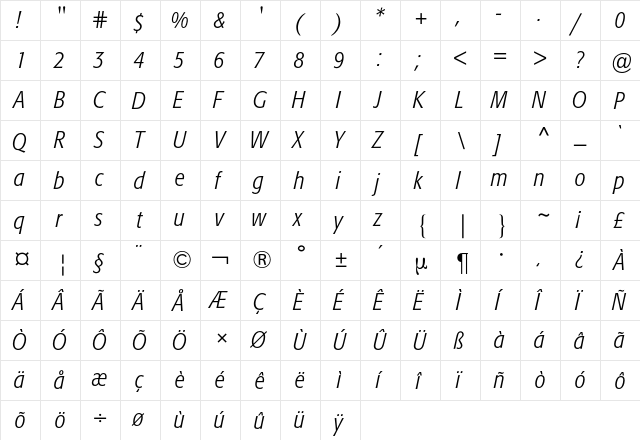
Formata Condensed BQ Regular
Design Context for Formata Condensed BQ Typeface
Formata Condensed BQ offers clean, dependable letterforms without strong stylistic allegiance, making it a practical choice for designers who need flexibility. The condensed width makes it efficient for tight spaces without sacrificing legibility.